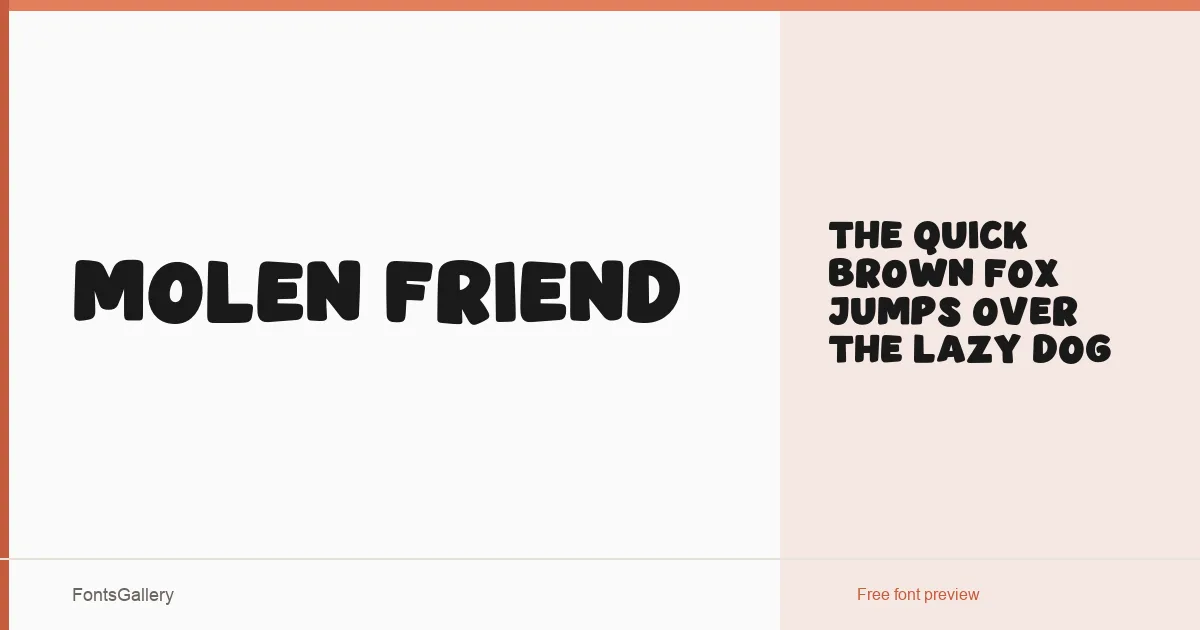
About Molen Friend Font
Molen Friend is a display typeface created by Lettersweet, designed to bring a sense of fun and personality to any creative project. With its playful and whimsical character, this font makes an immediate visual impact that draws the eye and sparks delight. It strikes a bold presence that is both expressive and full of charm.
As a display font rooted in playful and whimsical sensibilities, Molen Friend features letterforms with bold, expressive qualities that feel lively and energetic. The characters carry a sense of movement and personality, making each letter feel distinct and full of character. This combination of boldness and whimsy gives the typeface a strong visual identity suited to attention-grabbing designs.
Molen Friend shines in contexts that call for creativity and visual excitement, including logos, posters, branding, t-shirt designs, and children's books. Its bold and playful nature makes it especially well-suited for projects aimed at younger audiences or brands with a fun, energetic identity. For balanced pairings, consider combining Molen Friend with the clean neutrality of Helvetica or the complementary style of Aresink.